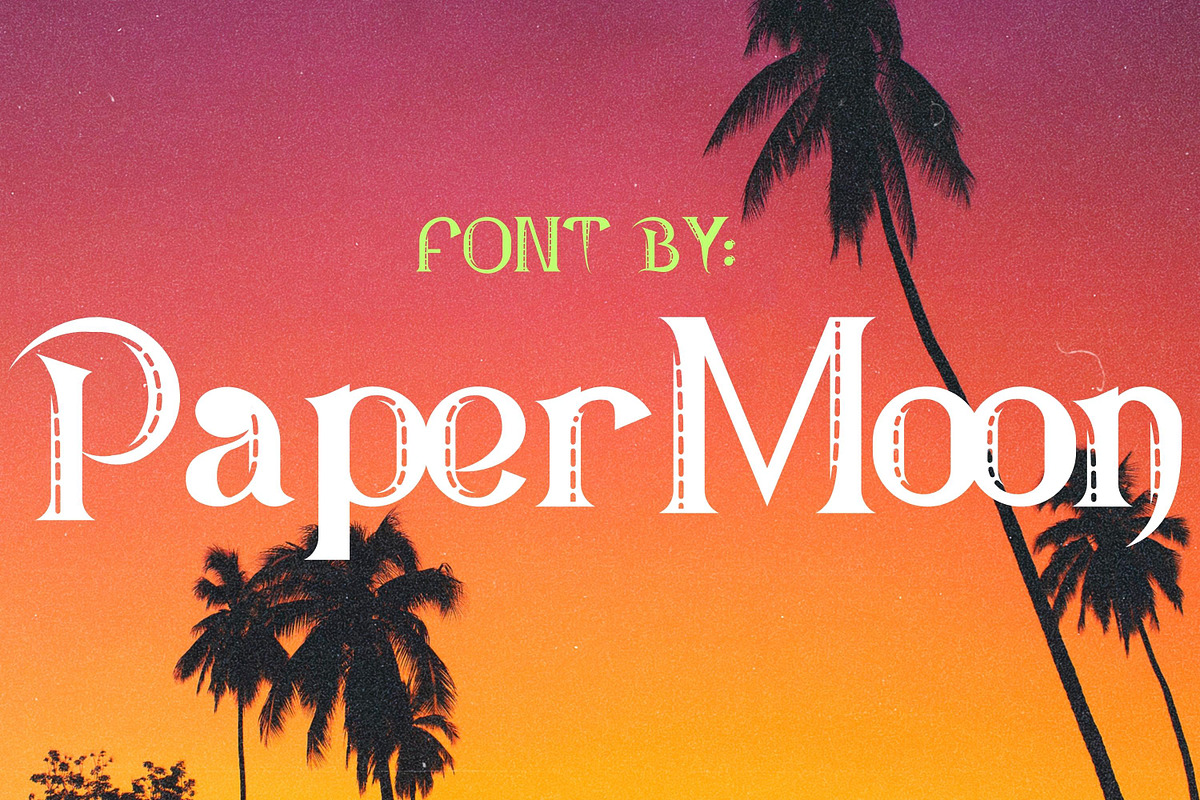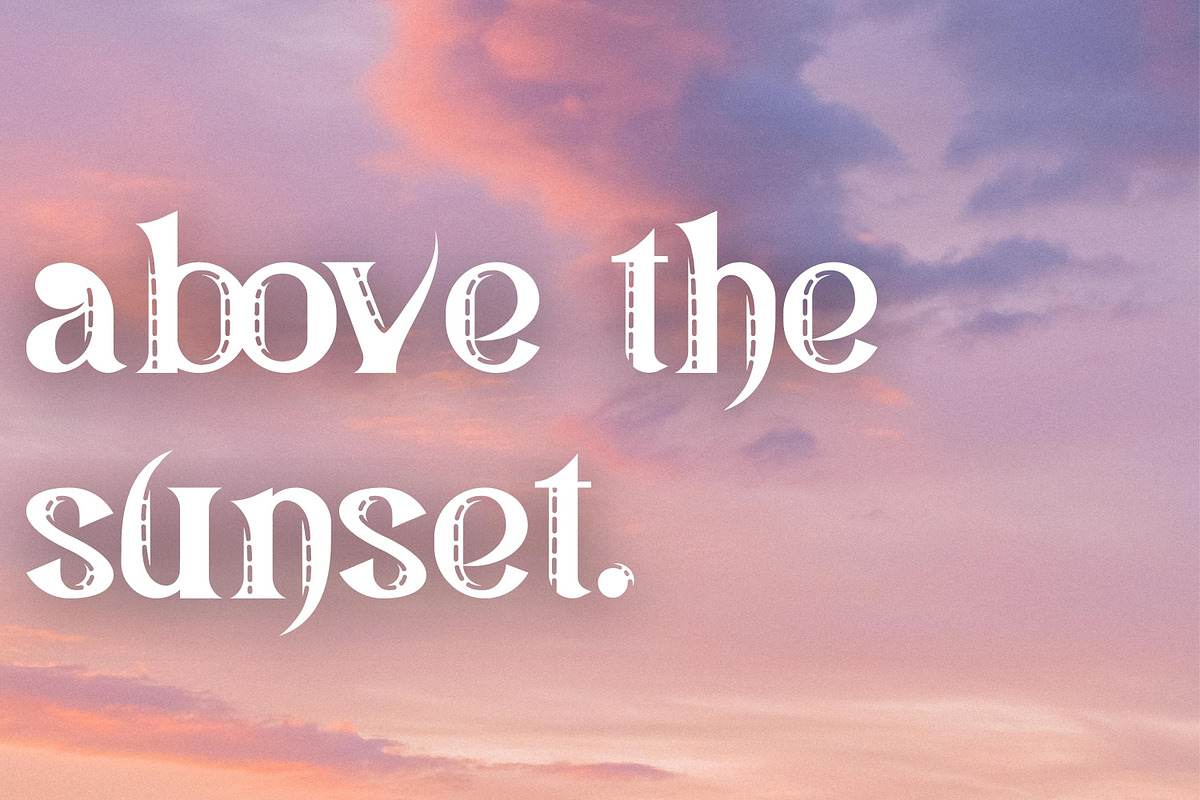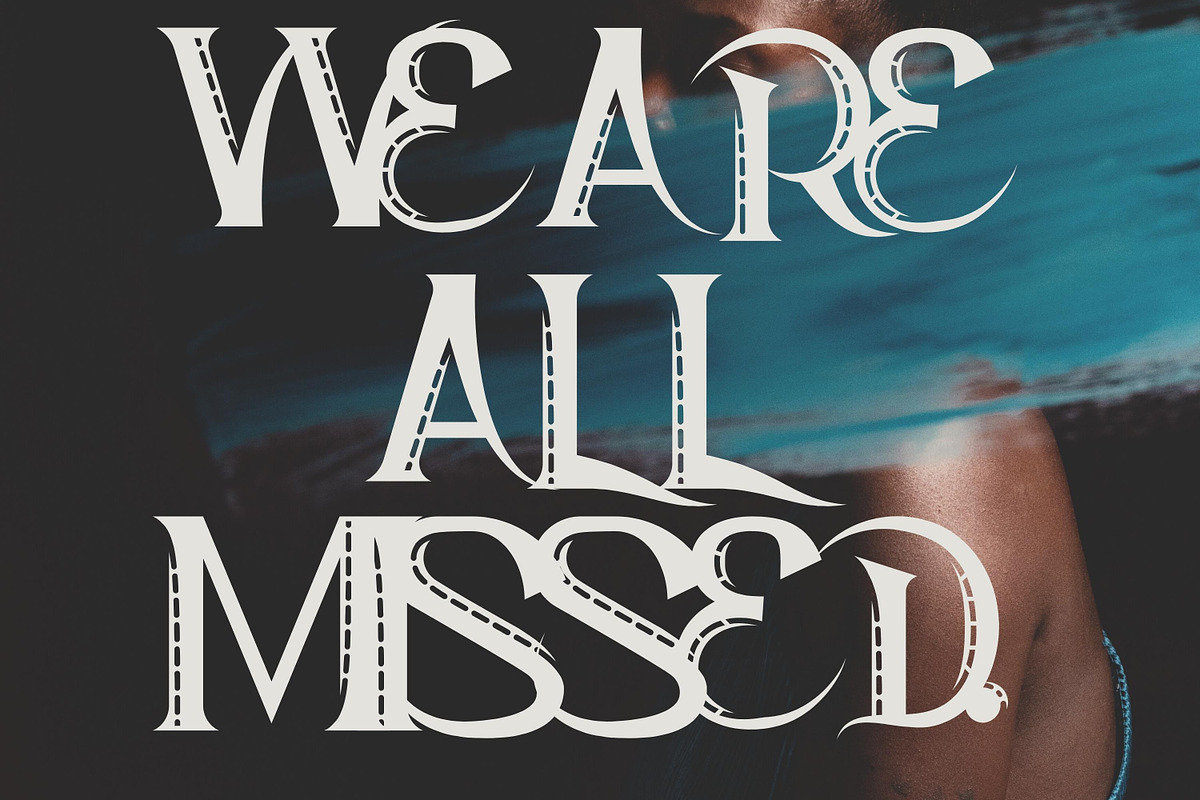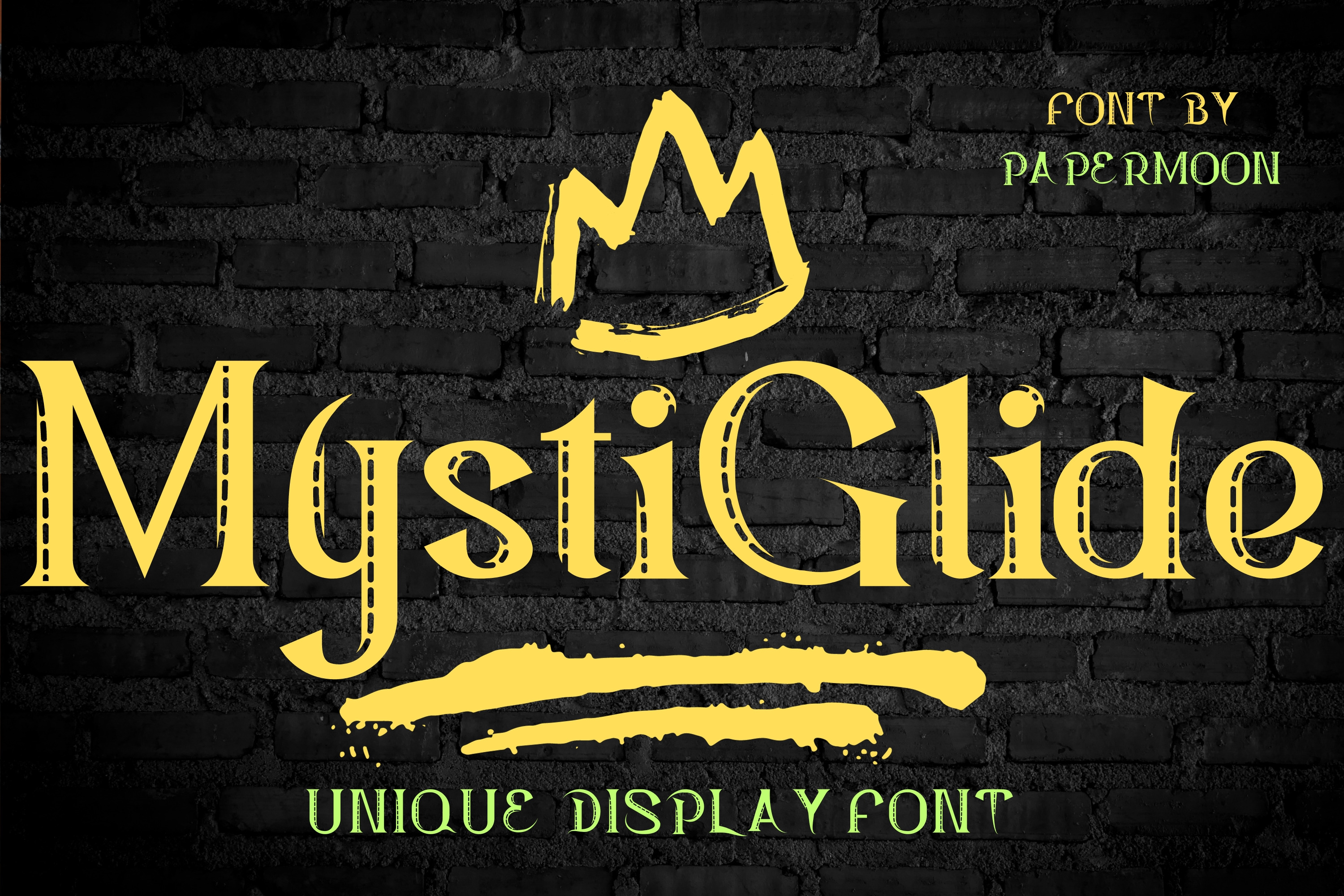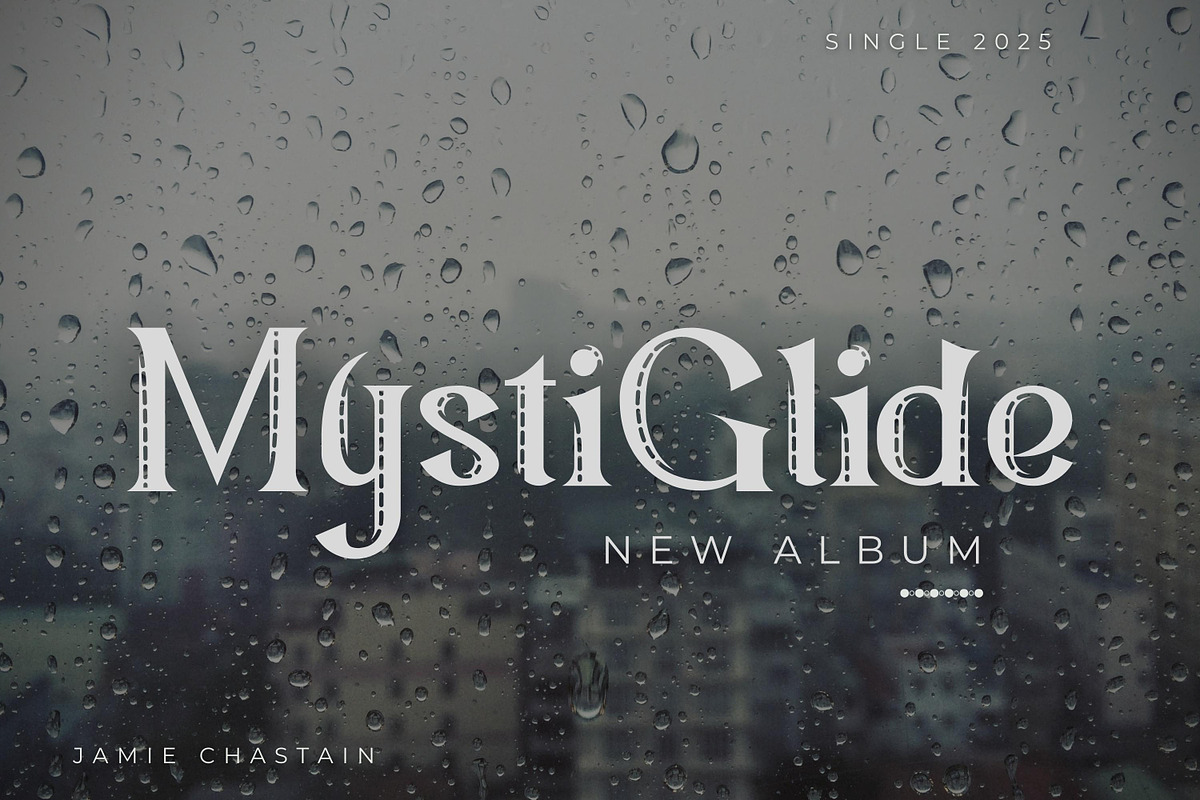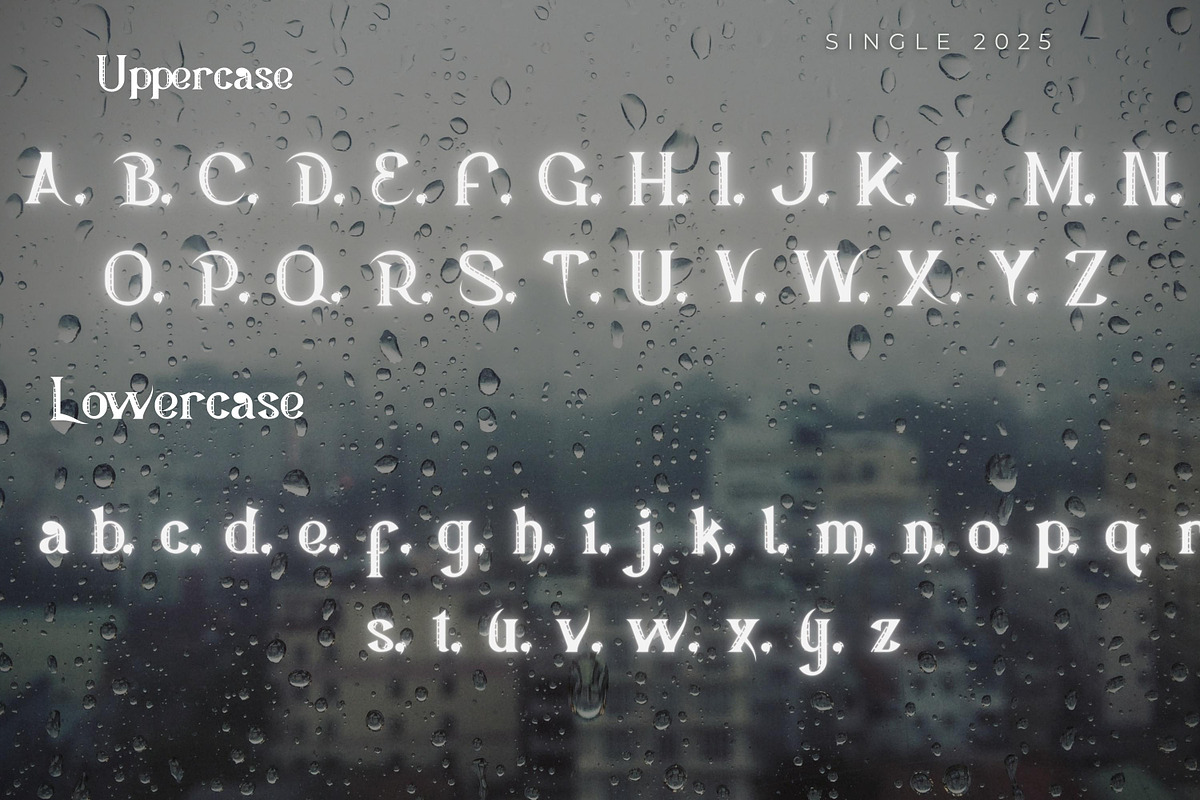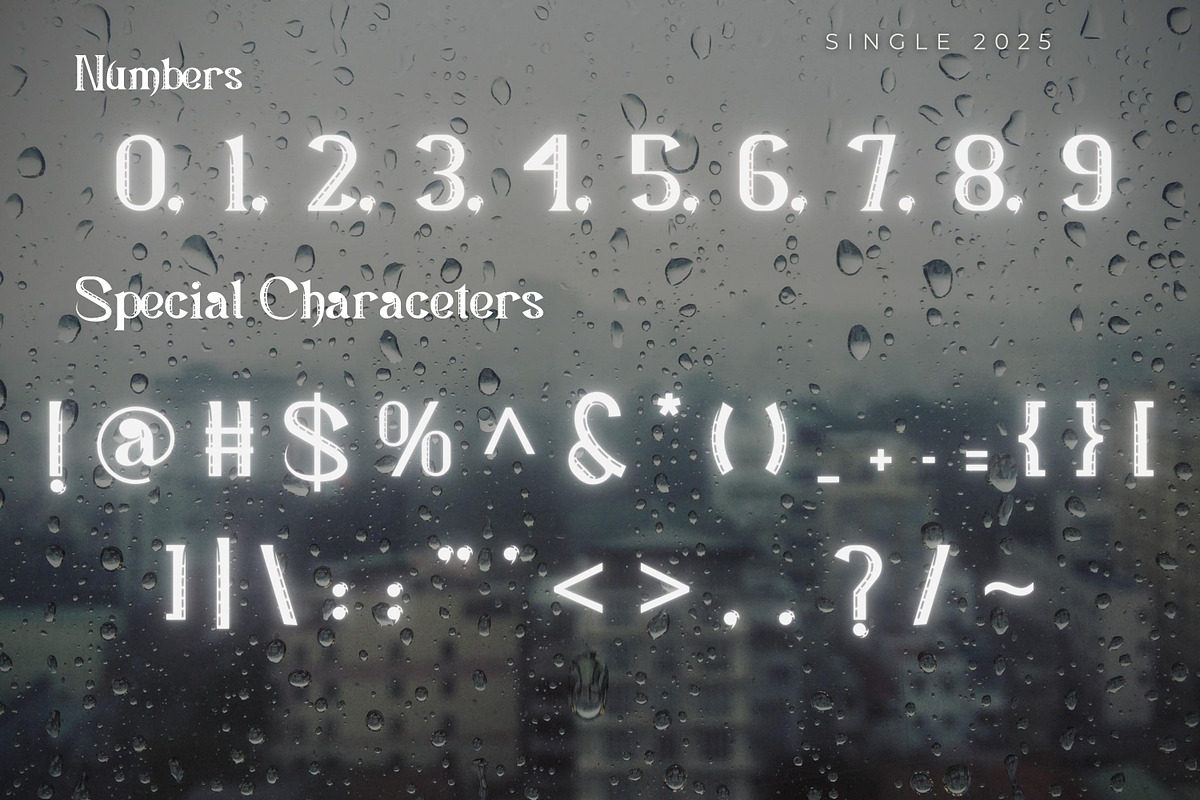
MysticGlide: Unique Display Font
MYSTIGLIDE VINTAGE DISPLAY FONT
MystiGlide is a vintage display font with bold letters, pointed edges, and a distinctive road-strip style detail. The download includes OTF and TTF files with multilingual support and PUA-encoded characters for easy glyph access.
- Full character set with road-strip detailing
- Font style: Vintage display font
- Character set: Uppercase and lowercase letters
- Includes: Numbers, punctuation, symbols
PERFECT FOR
- Headlines and posters
- Labels and product packaging
- Signage and magazine titles
- Automotive or retro-themed branding